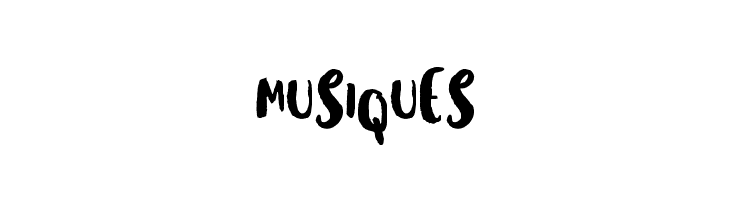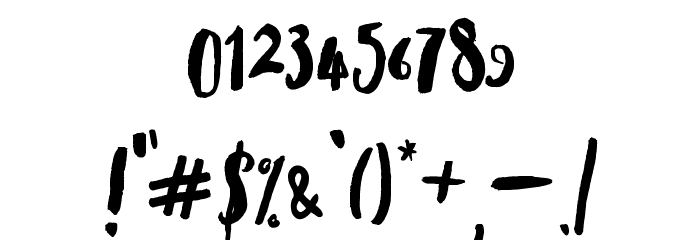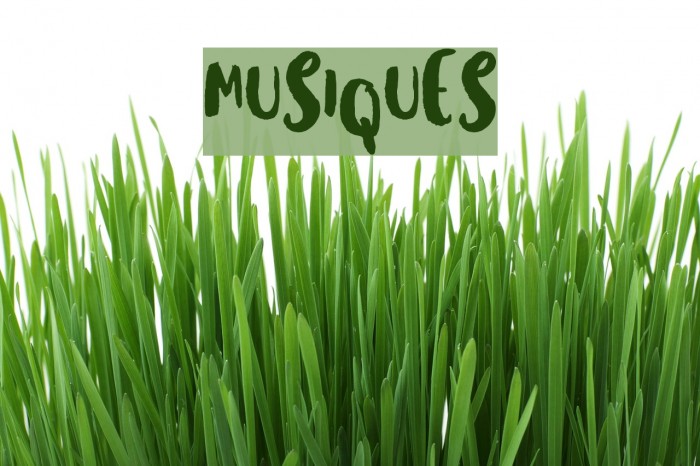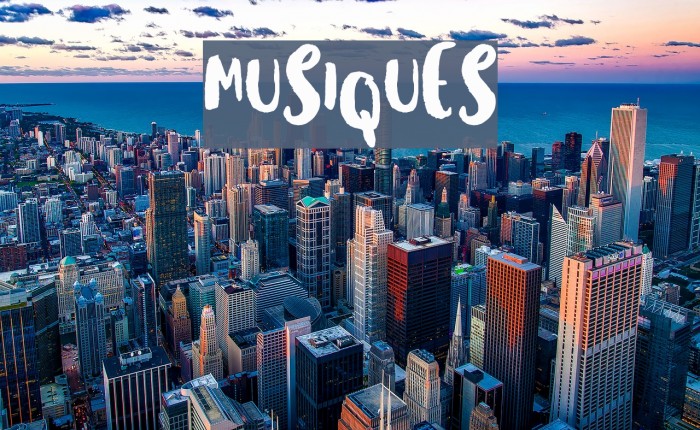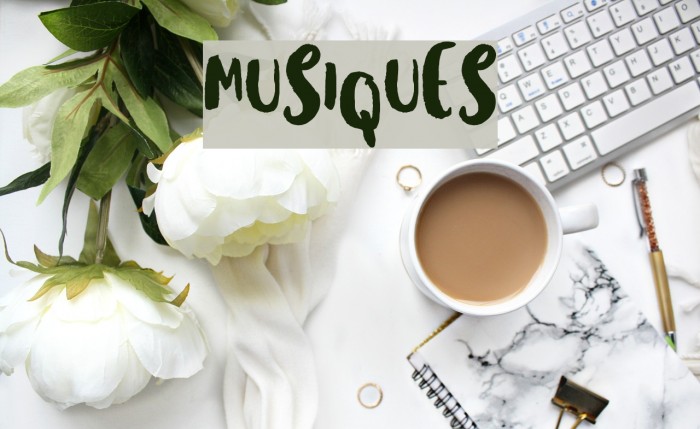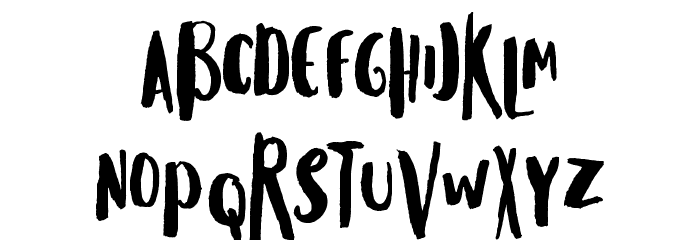
Musiques Font
Musiques Description
This font features a bold, expressive style with a hand-drawn appearance. The characters are irregular and dynamic, giving a sense of movement and energy. The strokes are thick and varied, with a playful and artistic flair. The uppercase and lowercase letters maintain a consistent style, while the numbers and special characters complement the overall design. This font is ideal for projects that require a creative and informal touch, such as posters, music album covers, or artistic branding.
A bold, hand-drawn font with an expressive and dynamic style from Script fonts.
- Proposed Projects: Ideal for posters, music album covers, artistic branding, and creative projects.